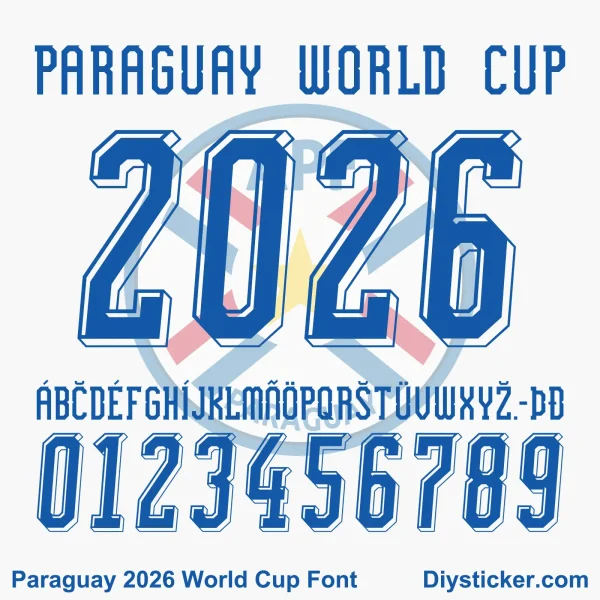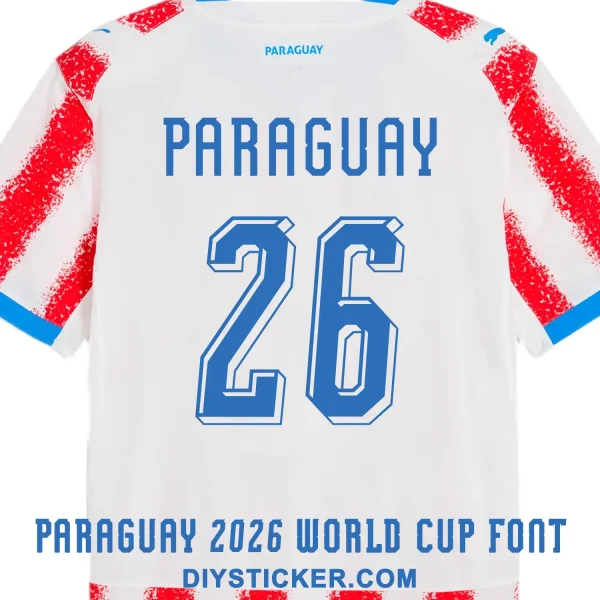
Paraguay 2026 World Cup Font & Numbers Vector Kit: Premium CONMEBOL Customization
Upgrade your custom print production with the high-performance Paraguay 2026 World Cup font and complete numbers set. Designed to perfectly replicate the striking national team look worn during international qualifiers and world championship matches, this digital toolkit offers unrivaled geometric precision. Whether you are creating a custom name-set for a passionate fan or compiling massive promotional sports signage, our vector files ensure factory-fresh alignment. Discover more iconic international tournament designs by exploring our curated World Cup 2026 Font repository.
Aesthetic Design Breakdown & Typography Engineering
The Paraguay 2026 World Cup font features a sophisticated, modern athletic design crafted to stand out on the pitch. Distinctive visual selling points include:
3D Dimensional Block Shadow Geometry: The numbers feature an advanced three-dimensional block drop-shadow outline, giving names and numbers an aggressive, modern, and deep spatial presence on the kit fabric.
Fine White Inline Contour: A meticulous inner accent stroke contours through the core of each digit, establishing a rich, textured depth that pops vibrantly against team colors.
Elongated Angular Terminals: Built with a tall, condensed structure combined with sharp 45-degree chamfered corners, blending classic South American football heritage with modern aerodynamic aesthetics.